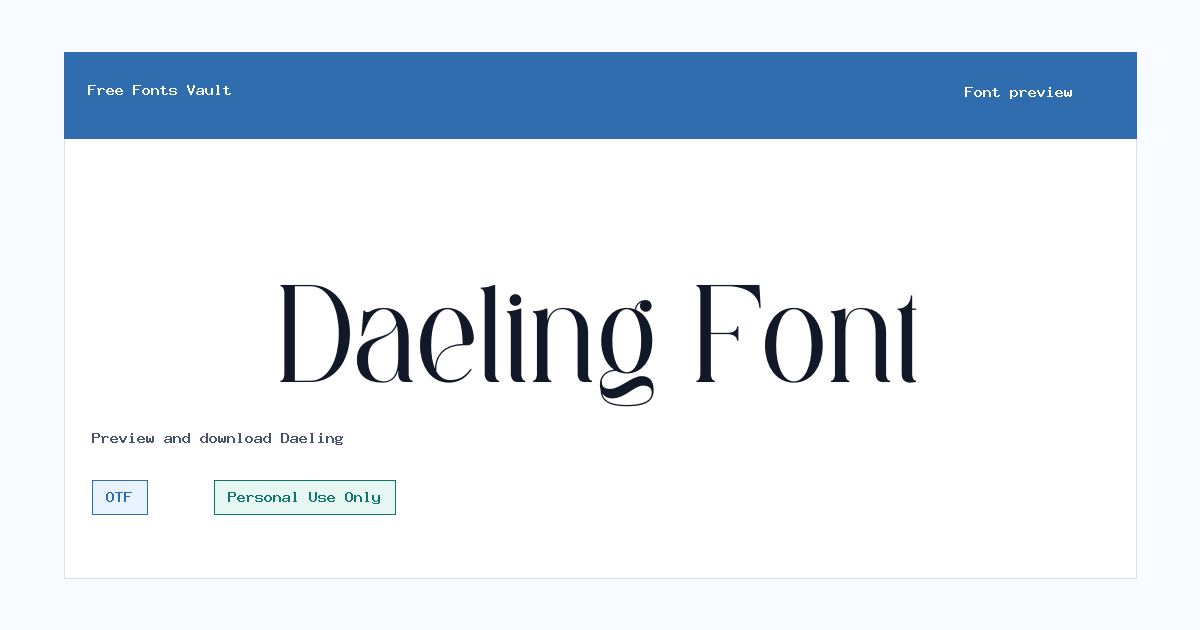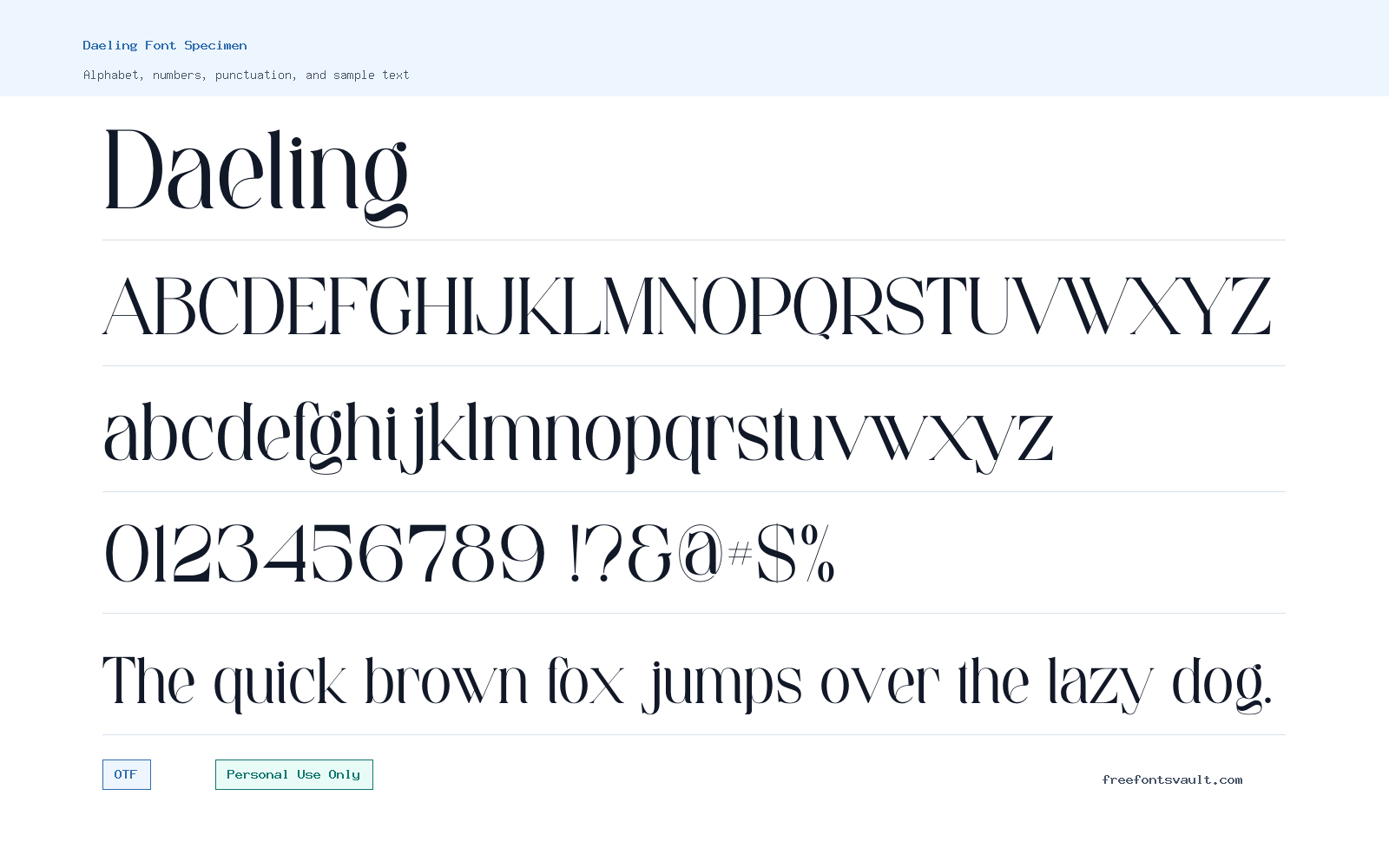
Daeling
- Designer Biham Santoso
Daeling is a serif font designed by Biham Santoso. It is best approached as a display typeface for personal projects where you want a refined title, logo draft, poster heading, or elegant visual accent.
Daeling has the kind of serif personality that works well when the text is meant to be noticed. Use it for short words, names, headings, quote graphics, packaging concepts, invitations, mood boards, or branding studies where the letterforms can have room to stand out. Because the available font file is an OTF regular style, it is a straightforward choice for testing in common design apps such as Photoshop, Illustrator, Affinity Designer, Canva uploads, and many desktop publishing tools that support OpenType fonts. The regular weight makes it easy to start with simple previews before deciding how much spacing, size, and contrast your design needs.
For best results, test Daeling with the exact words you plan to use. Display serifs can look very different between a short brand name, a two-word poster title, and a longer sentence. Try it in uppercase, title case, and lowercase if the font supports the characters you need. Increase the letter spacing slightly for logos or fashion-style headings, and keep the line length short for posters or web hero mockups. If you are building a layout around Daeling, pair it with a quiet sans serif for body text so the page stays readable. Avoid using it for long paragraphs unless your preview shows strong readability at smaller sizes.
- Serif display style suited to short titles, logos, poster text, and visual branding tests
- Works best when given generous size, spacing, and contrast
- Useful for mockups where a refined serif headline needs to carry the design
- Logo drafts and personal branding concepts
- Poster titles, event graphics, and quote images
- Invitation headings and elegant announcement designs
- Website hero mockups and landing page title tests
- Packaging concepts, labels, and social media graphics for personal projects
- Typography studies where a serif display face is the main visual element
Who designed Daeling?
Daeling is credited to Biham Santoso.
What is Daeling best used for?
Daeling is best for short, display-focused text such as logo drafts, poster headings, invitations, social graphics, packaging concepts, and web hero mockups.
Can I use Daeling for body text?
It is better to test Daeling as a headline or display font first. For long paragraphs, pair it with a simpler sans serif or text serif that is easier to read at small sizes.